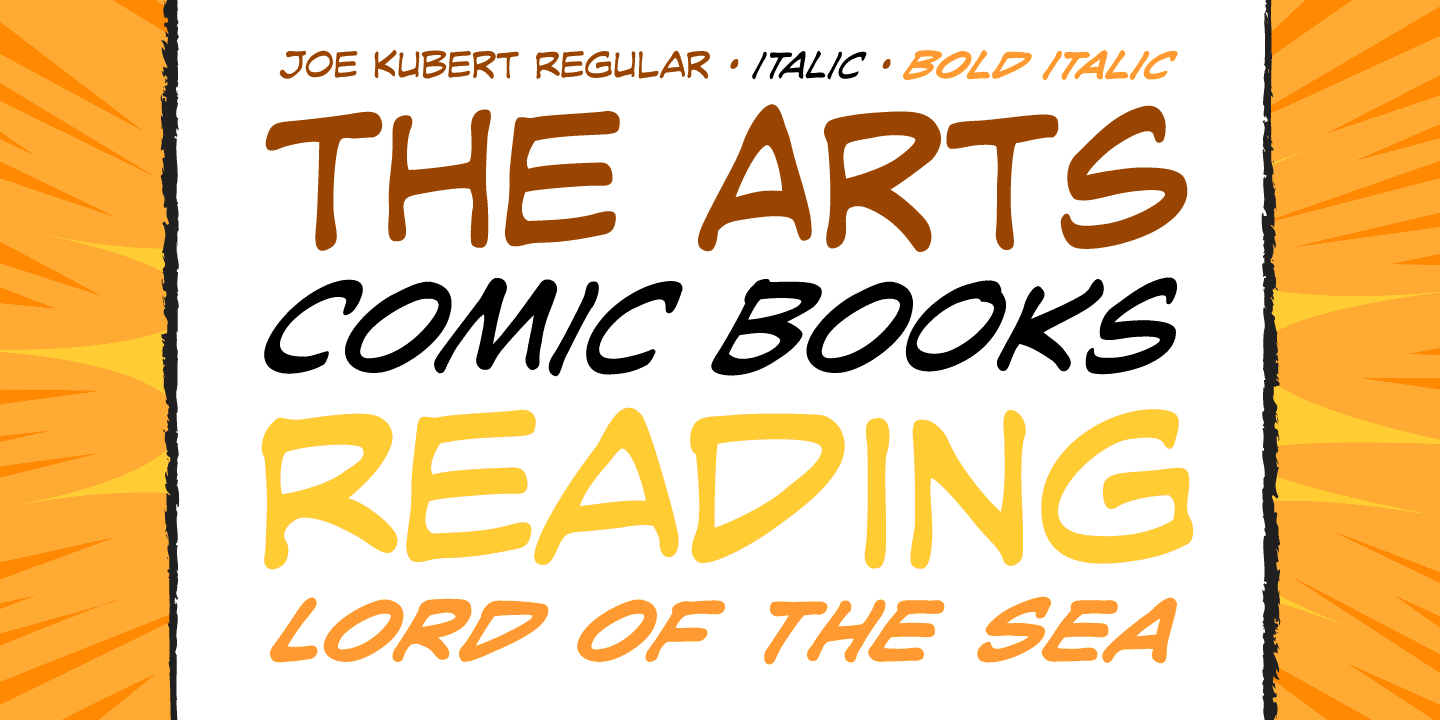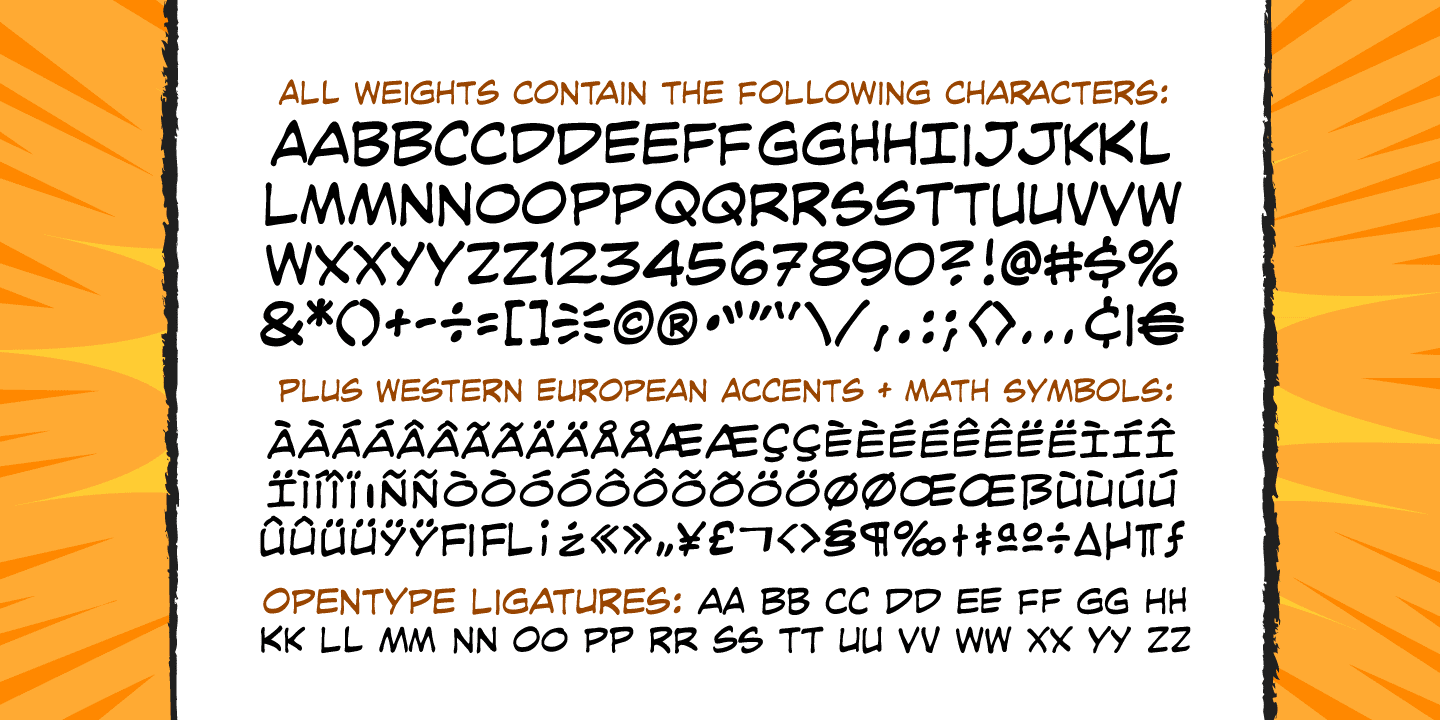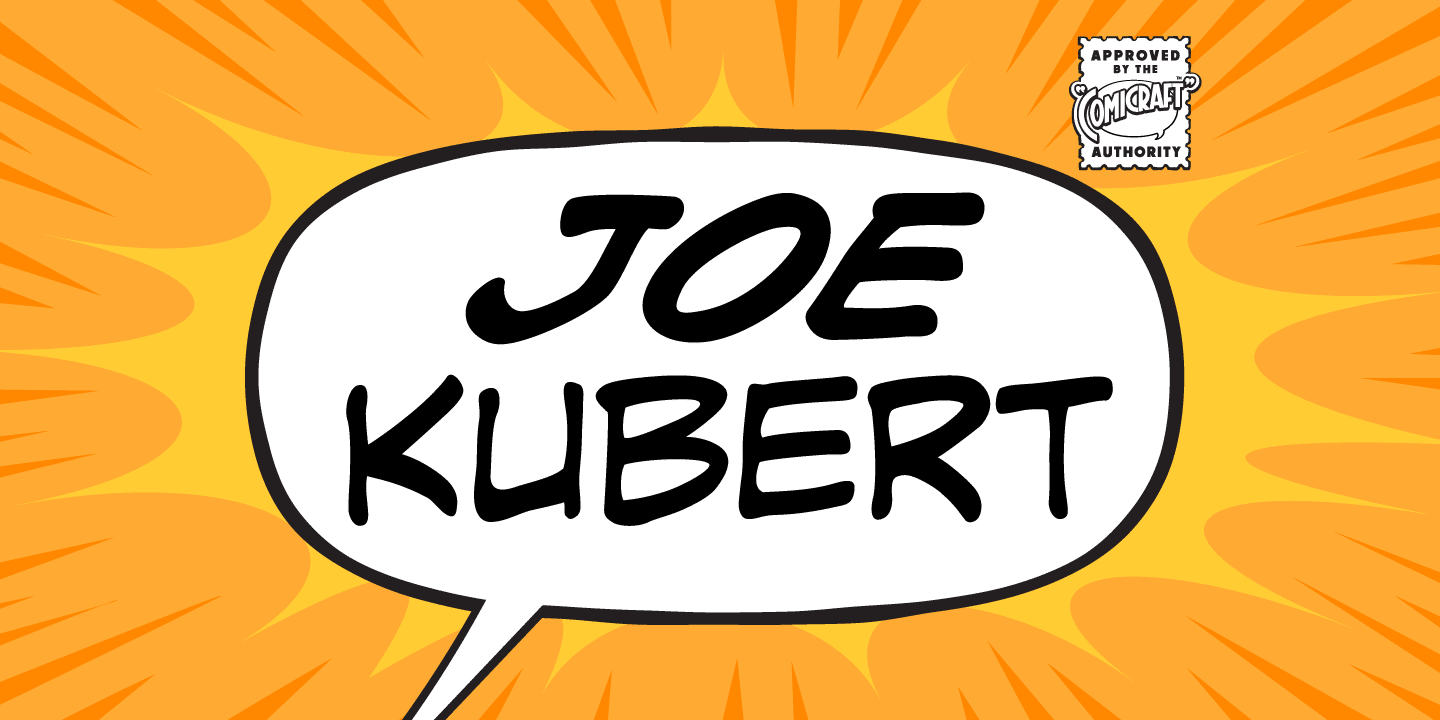
Joe Kubert
The official Joe Kubert font has been digitally mastered by John ’JG’ Roshell based on Joe’s own specifications for an upcoming SGT ROCK project for DC Comics. Pull up a chair at our Thanksgiving table and marvel at Joe’s legendary…